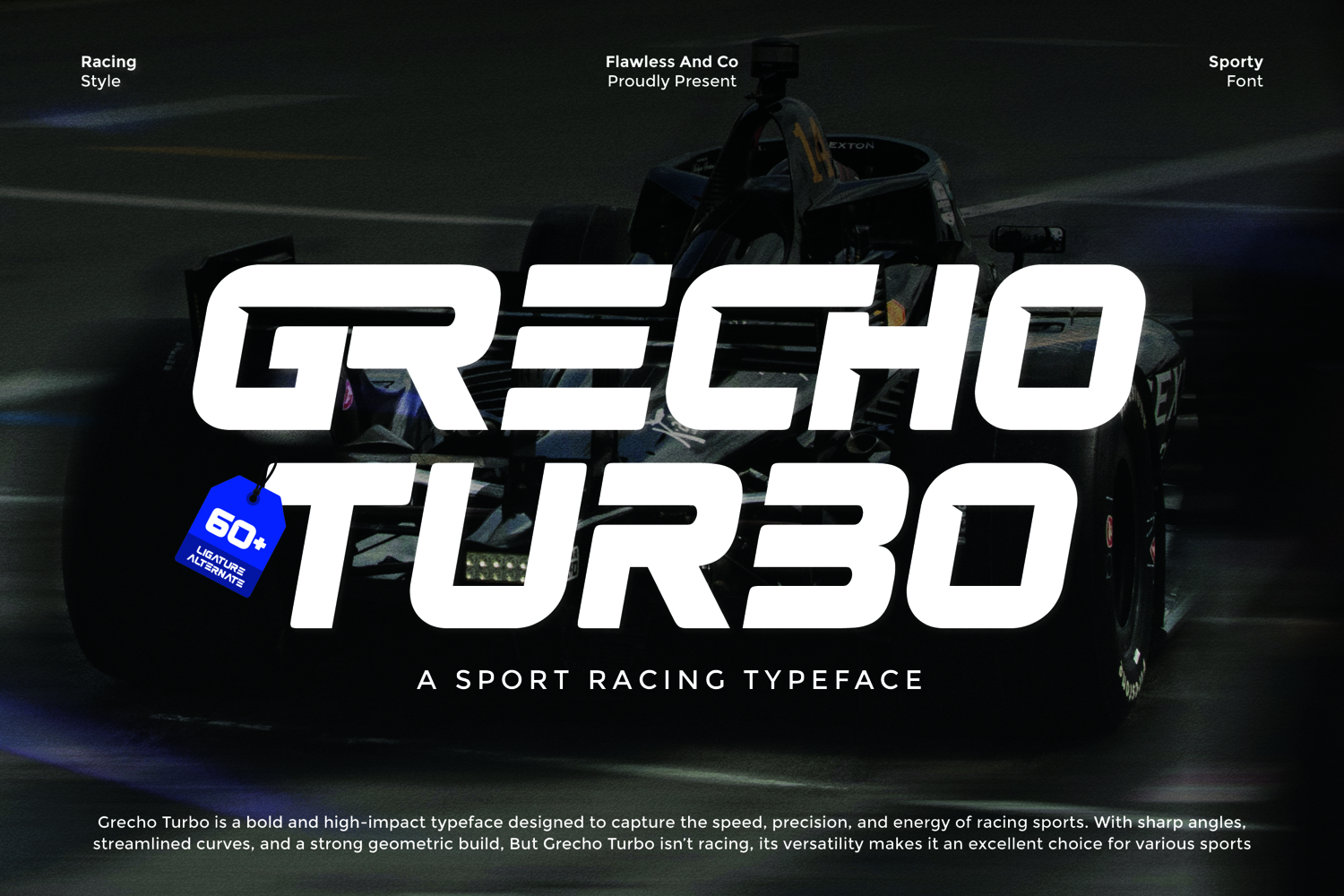
Grecho turbo - Sport Font
Grecho Turbo is a bold and powerful sport font designed to capture the speed, precision, and dynamic energy of modern athletics. With its sharp edges, aerodynamic shapes, and strong geometric structure, this typeface radiates confidence and impact. Whether for racing, sports branding, fitness merchandise, or bold headlines, Grecho Turbo brings unstoppable energy to your designs. Its versatility ensures it looks just as strong off the track — making it a go-to choice for any project that demands movement, strength, and high-impact style.
- Alternates & Ligatures
- Numerals & Punctuation
Who Should Use Grecho Turbo?
Grecho Turbo is made for designers, creatives, and brands who want to bring speed, energy, and bold confidence into their projects. This font is perfect for:
- Sports teams & athletic brands that need strong, high-impact typography
- Racing and automotive industries looking for fast, futuristic designs
- Fitness & gym branding that demands bold, powerful lettering
- Streetwear & activewear labels aiming for a dynamic, modern identity
- Event posters, tournaments, and championships that need energetic headlines
- Creatives working on bold logo designs, merchandise, and digital campaigns
A Must-Have Font for "Brand and Logo" Creators and Designers
Grecho Turbo isn’t just a font—it’s a design weapon built for creators who want to stand out. With its bold and fast-paced style, this font helps transform ordinary designs into powerful visual statements. Perfect for brand identities and logos, it ensures your work carries the strength, confidence, and energy needed to leave a lasting impression.
Why Choose Grecho Turbo for "Brand and Logo" Projects?
Grecho Turbo combines bold aesthetics with dynamic energy, making it the perfect choice for impactful branding. Its strong, sporty look ensures your logos and brand visuals stand out in any industry, from sports and gaming to lifestyle and automotive. Designed to command attention, this font delivers power, confidence, and a modern edge that helps brands establish authority and recognition.
Suitable For:
- Sports branding and athletic team logos
- Automotive, racing, and performance-related designs
- Gaming titles, esports teams, and streaming graphics
- Bold poster designs and dynamic event promotions
- Merchandise, apparel, and product packaging
- Lifestyle and urban brand identities